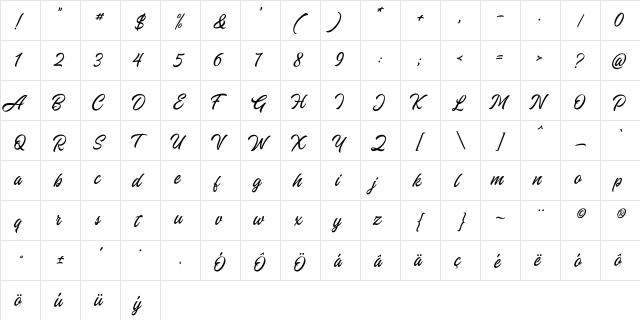
Hancock Script Regular
Design Context for Hancock Script Typeface
Hancock Script flows with the natural rhythm of handwritten lettering, making it ideal for designs that call for warmth and personal expression.
Font Pairing: Combine Hancock Script with a simple geometric sans for maximum contrast — the tension between flowing curves and clean structure is a classic typographic pairing.
Pro Tip: Pair Hancock Script with a clean sans-serif for supporting text. The contrast between fluid script and geometric structure creates an elegant typographic hierarchy.